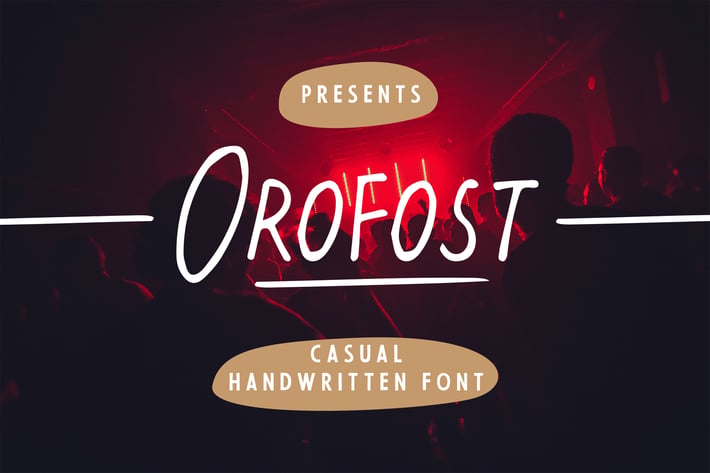
Orofost - Casual Handwritten Font
Orofost is perfect to use for Logotype, Letterhead, Poster, Apparel Design, Label and etc.
The alternative characters were divided into several features such as Stylistic Alternates and Ligature.